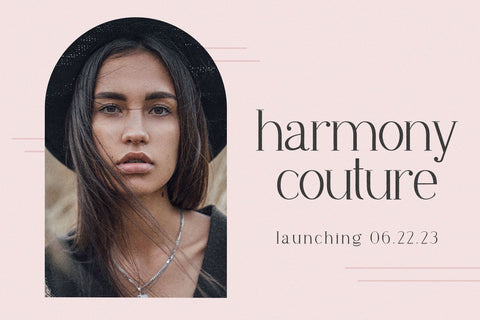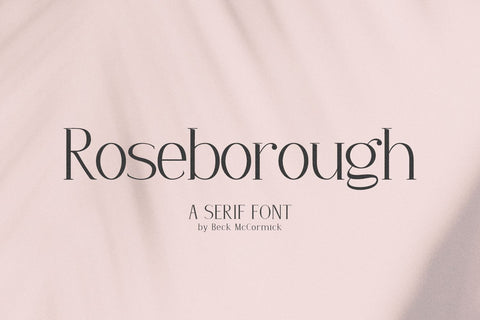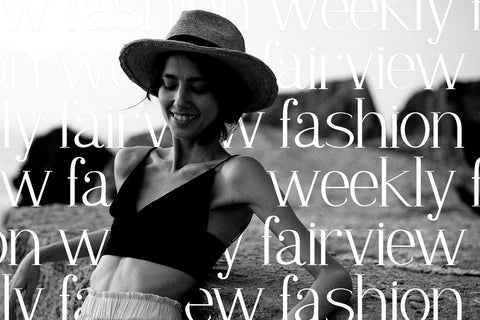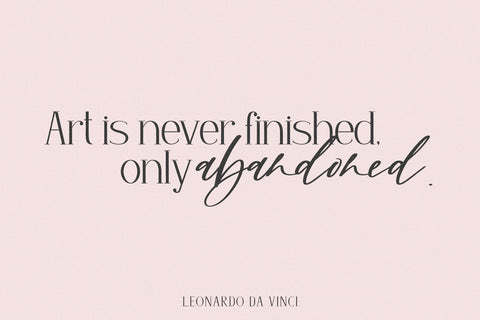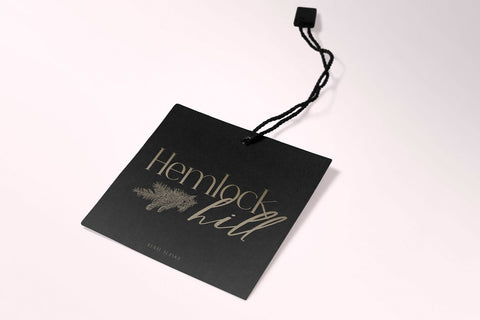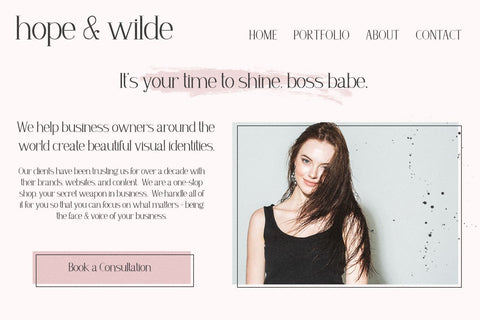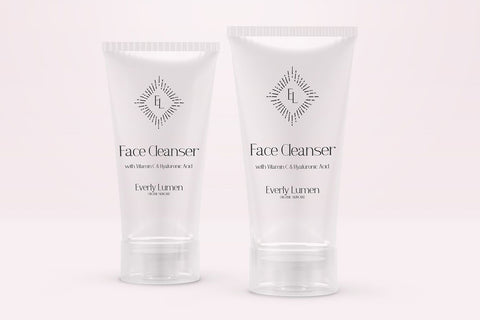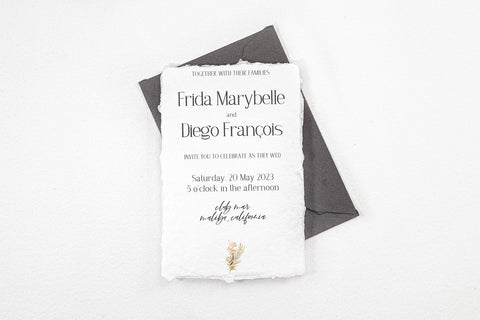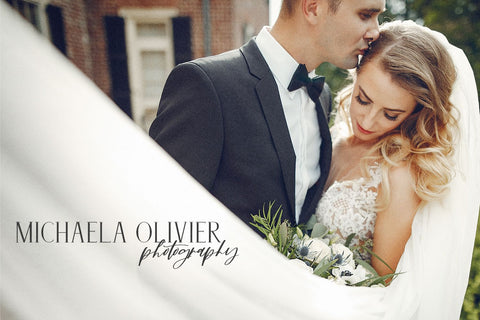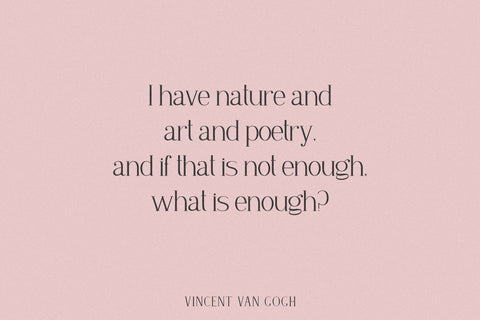
Roseborough Serif Font
Introducing Roseborough, a modern serif font. Roseborough is chic and timeless.
Roseborough is best for:
- logos + branding, especially cosmetics, fashion, & clothing brands
- website design + website accents - think feminine websites, creative professionals, travel blogs, fashion blogs, & more
- clean print design, like magazines + flyers
- header elements that need a clean, modern look
- quote graphics for social media
- chic graphic tees